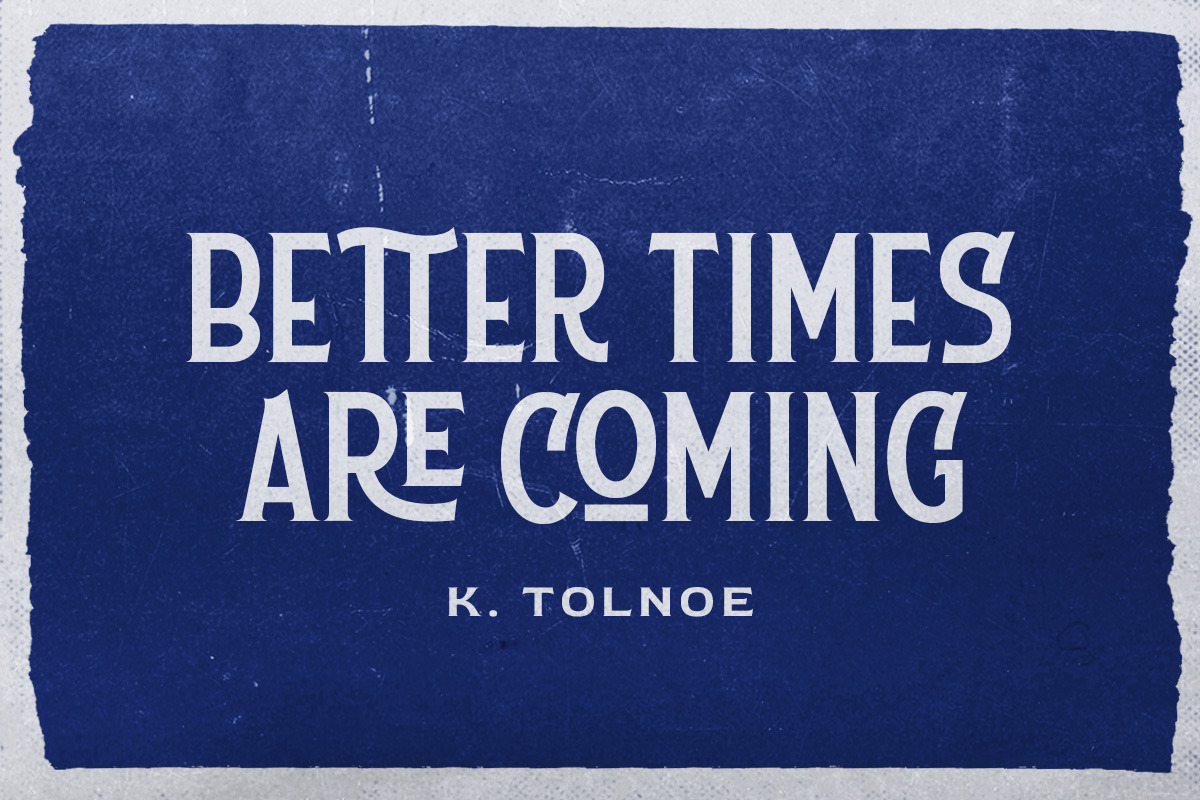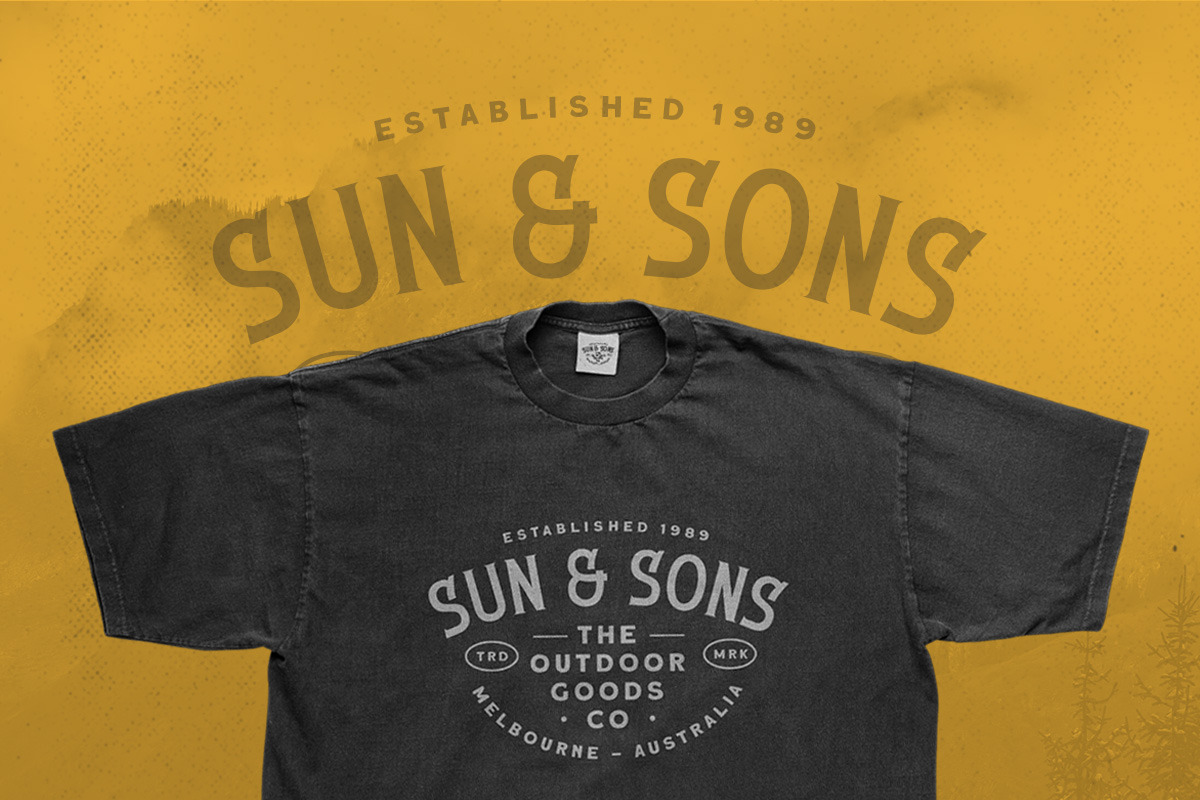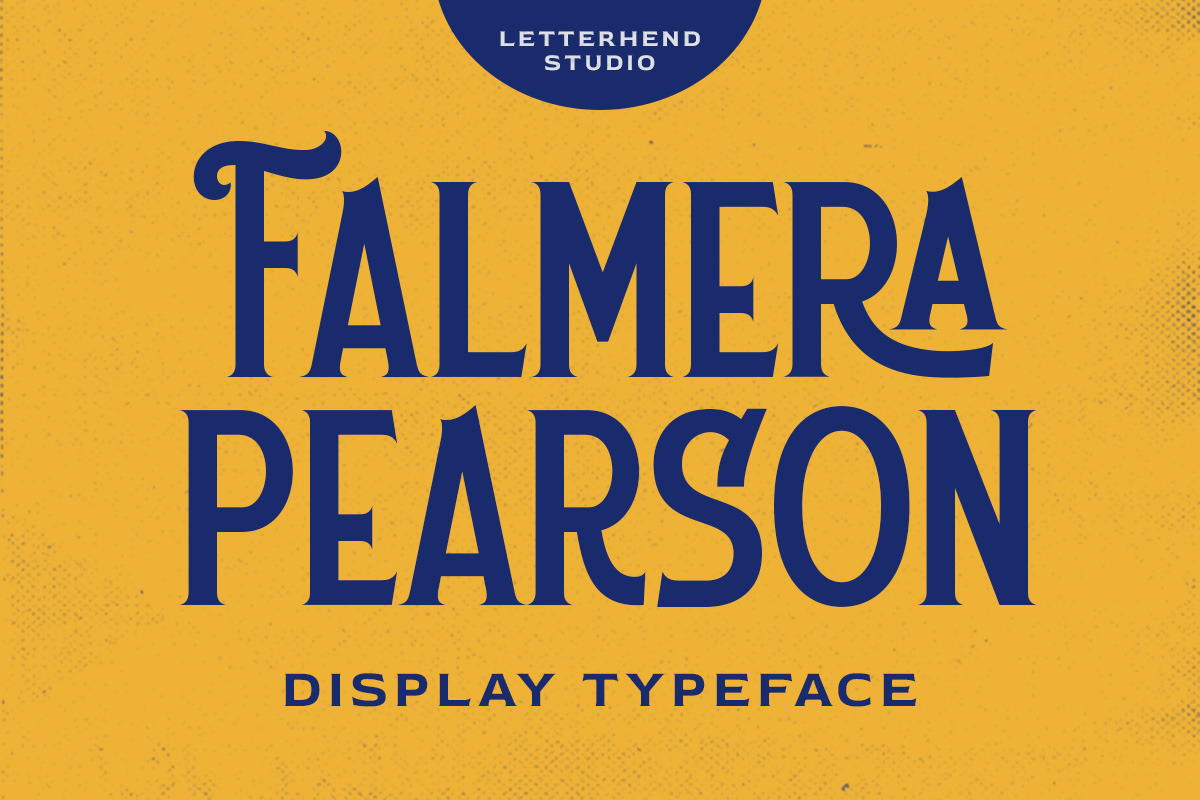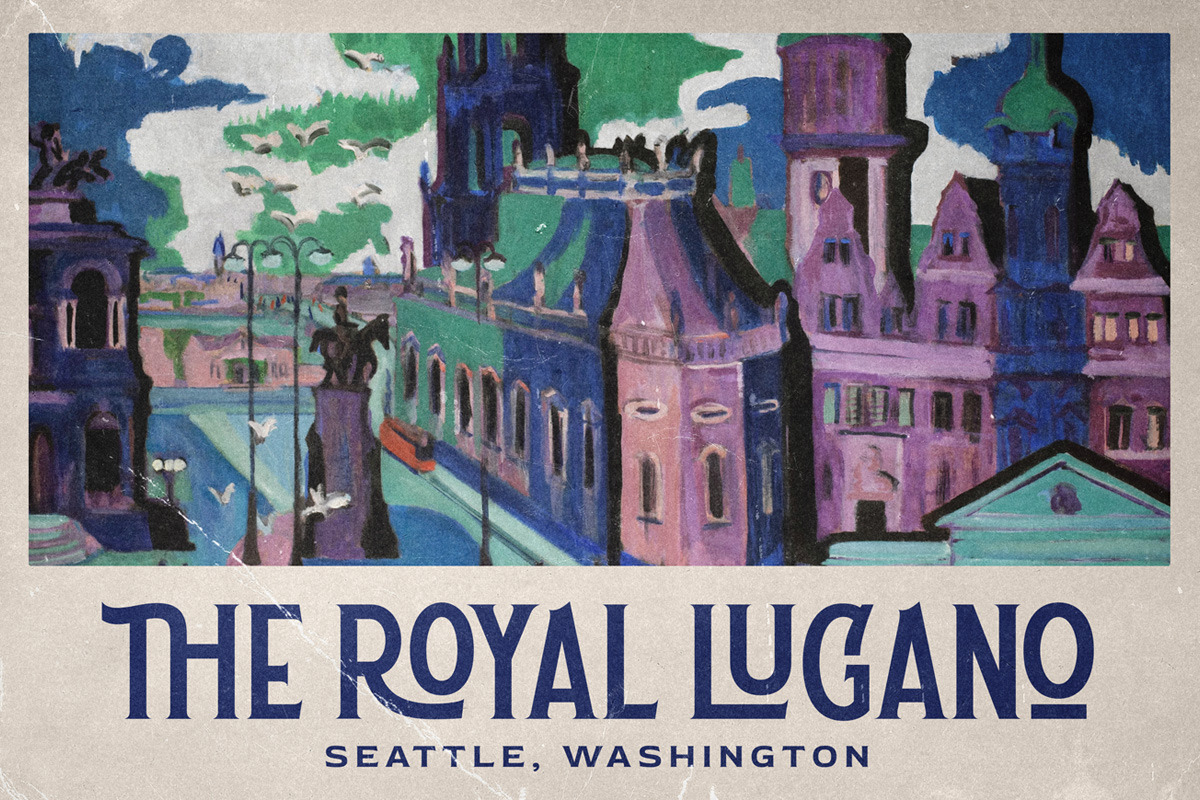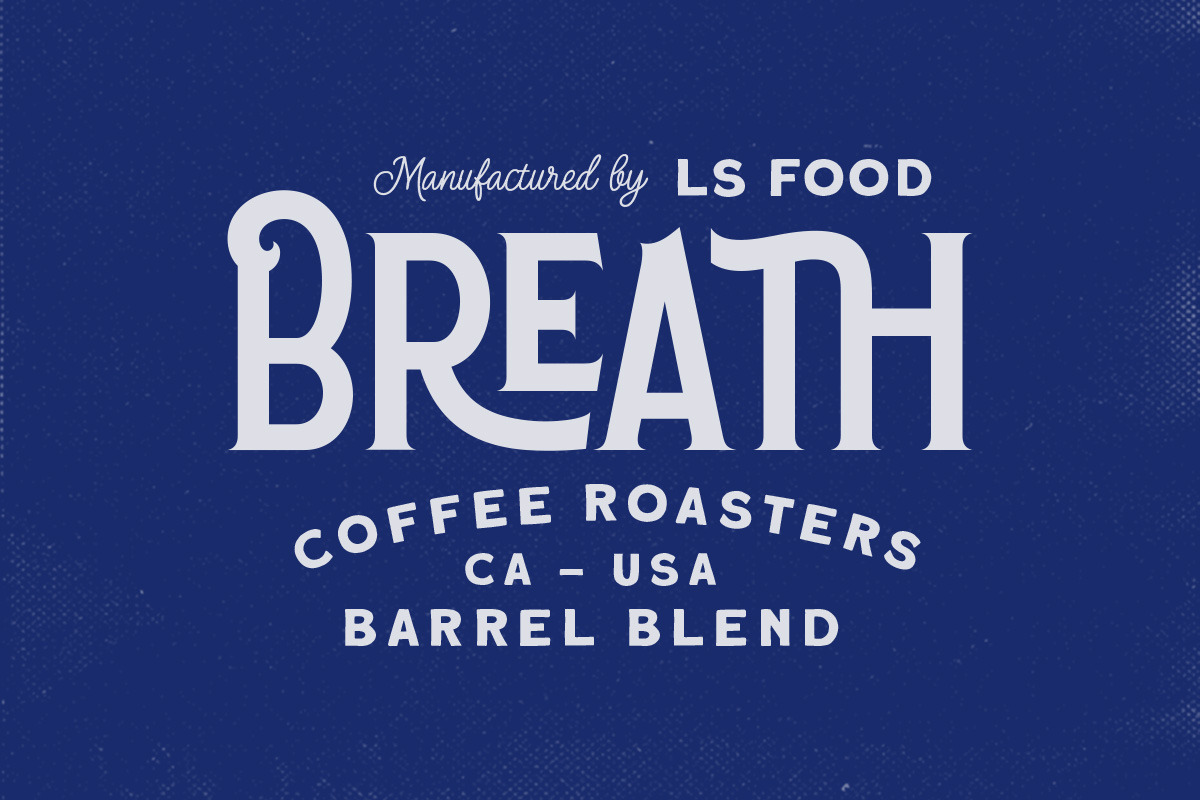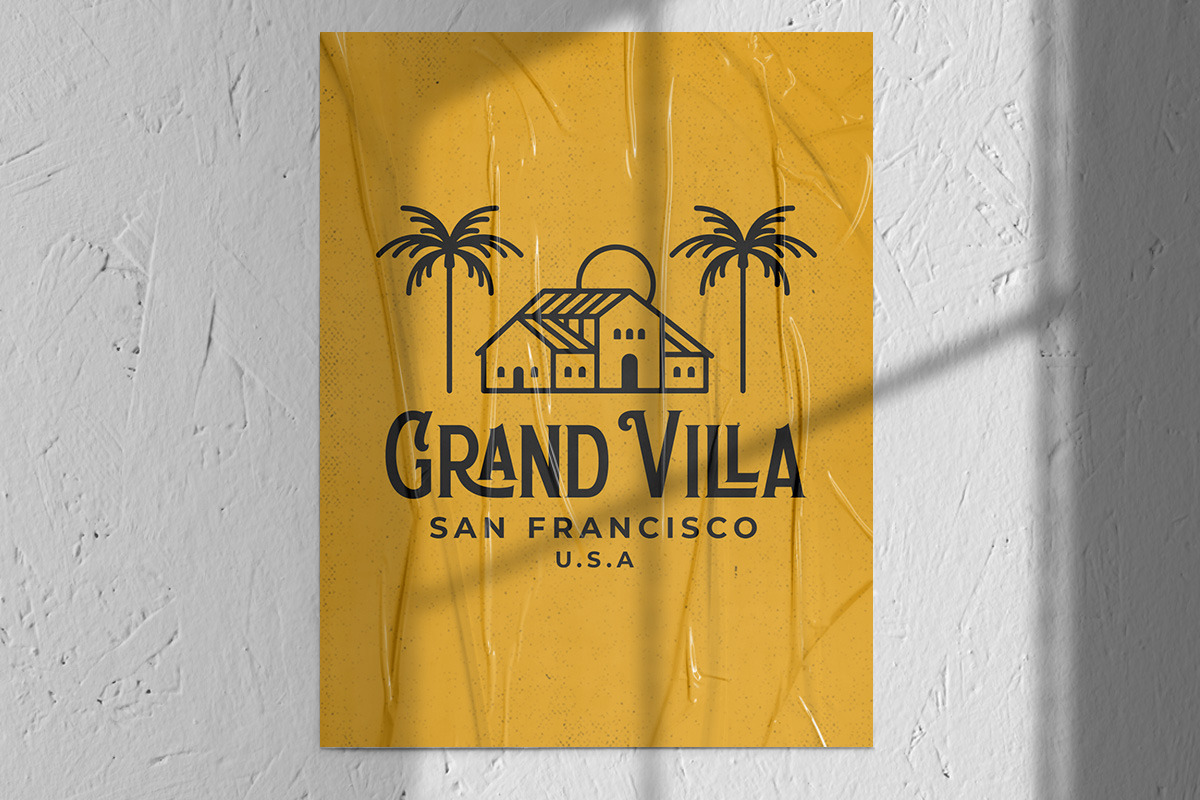
Falmera Pearson - Display Font
Falmera Pearson is font a typeface which is inspired by vintage lettering sign and art. Very suitable for for headline, logotype, apparel, invitation, branding, packaging, advertising etc with old school / vintage as well as modern theme. It comes in uppercase, lowercase, punctuations, symbols & numerals, stylistic set alternate, ligatures, etc also support multilingual and already PUA encoded.
- uppercase and lowercase
- alternates and ligatures